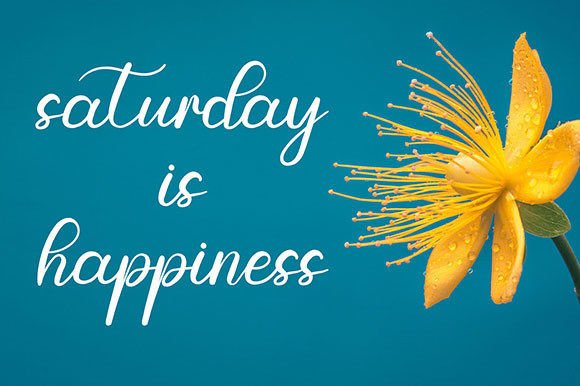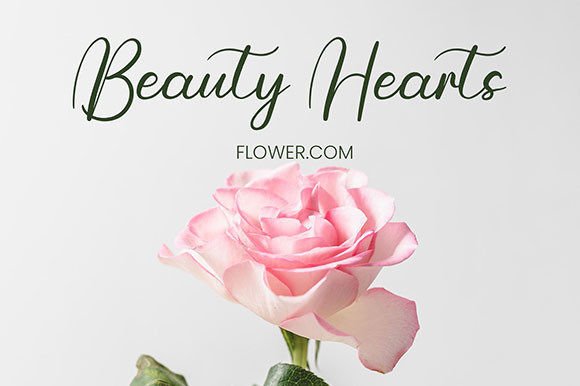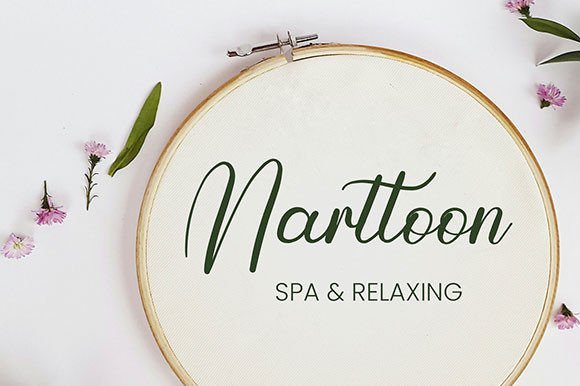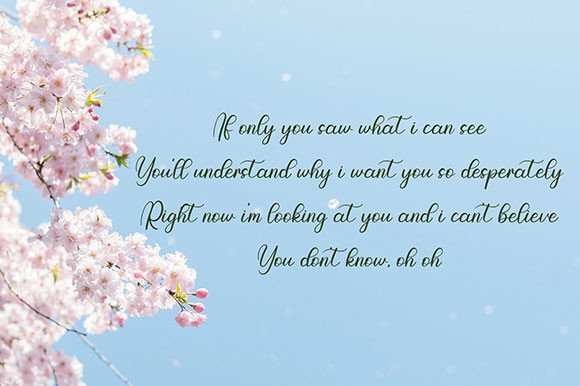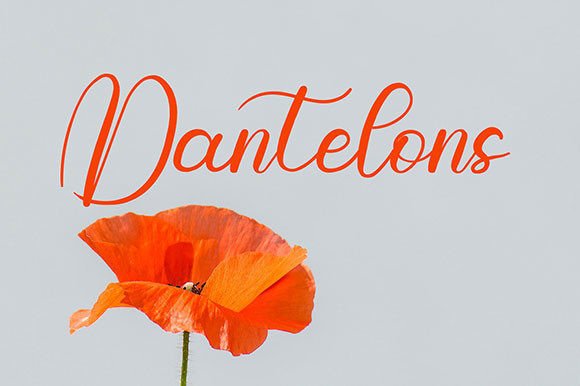
Waitting Font
About Waitting Font
Waiting is a cursive and modern handwritten font. This font will be suitable for various projects such as quotes, logos, blog headers, posters, ribbons, fashion, clothing, letters, invitations, stationery, etc.